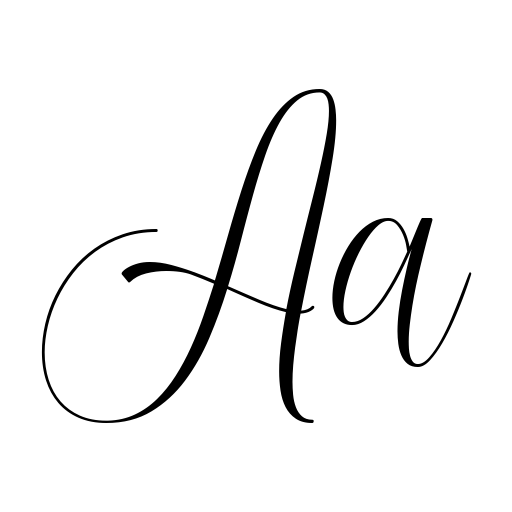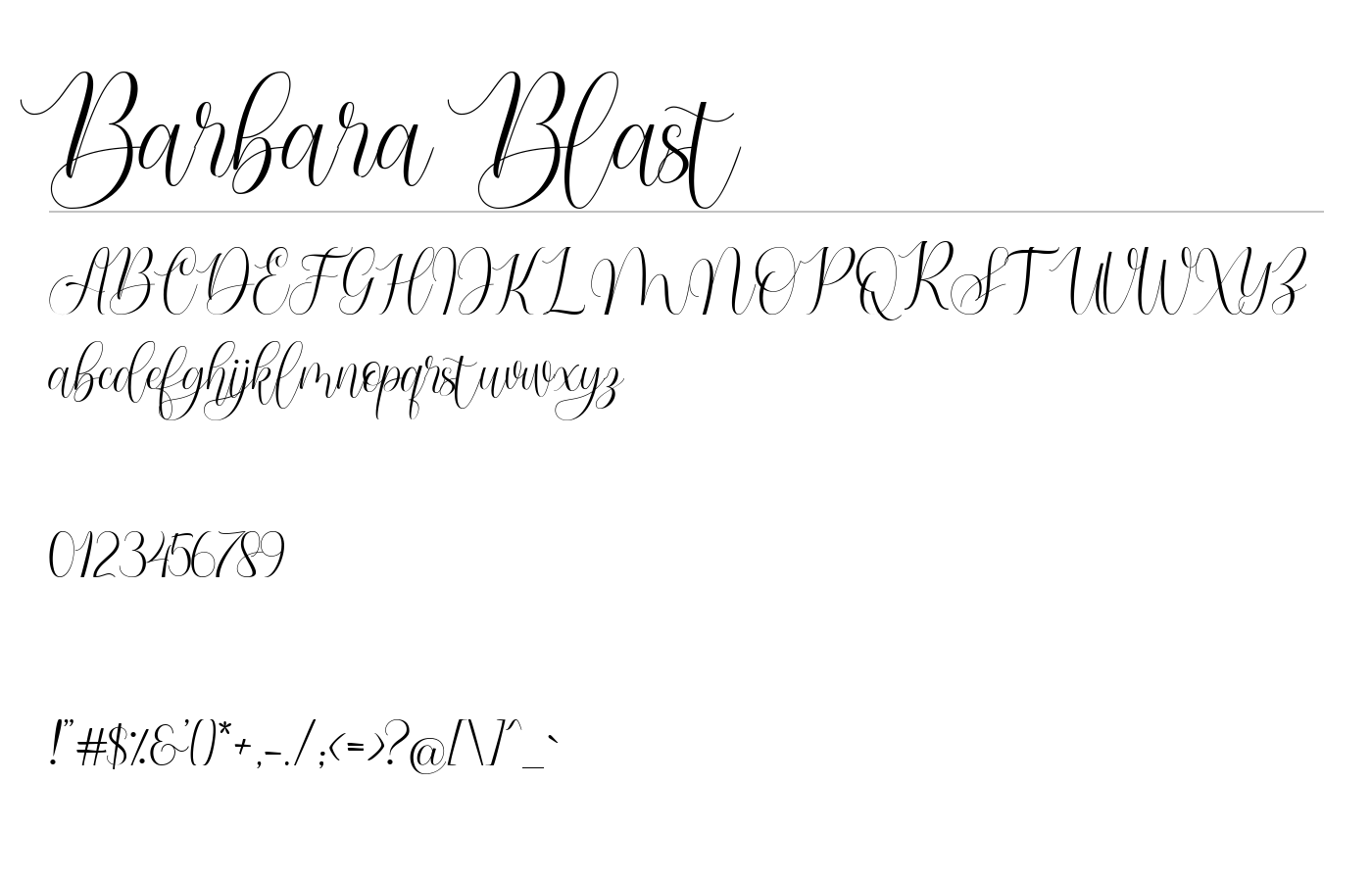
Barbara Blast is an elegant and delicate script font featuring slender, flowing letterforms with high contrast between thick and thin strokes, giving it a graceful and refined appearance. Its tall x-height and intricate swashes create a romantic and sophisticated vibe, making it perfect for wedding invitations, luxury branding, and stylish editorial designs. This font works best in headlines and decorative uses where its charming calligraphic style can shine.
Barbara Blast Font
About Barbara Blast Font